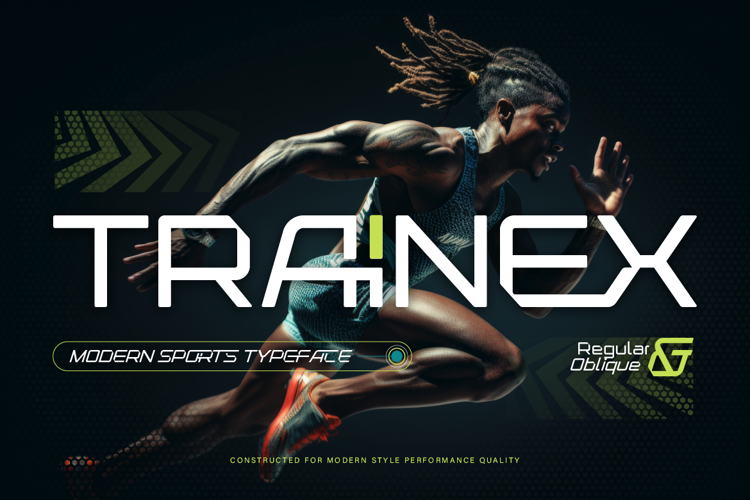
TRAINEX Font
Trainex is a modern sports typeface designed to capture the spirit of movement, competition, and peak performance.
Built on a geometric sans-serif foundation with carefully rounded terminals, Trainex carries a distinctive visual tension, structured enough to feel authoritative, smooth enough to feel contemporary. The letterforms are clean and open, ensuring strong legibility whether you're setting a headline, a team name, or a scoreboard display.
Perfect for:
* Sports branding
* Athletic apparel
* Gym & fitness identity
* Game titles
* Esports
* Sportswear packaging
* Event posters
* Mobile apps
* Social media content